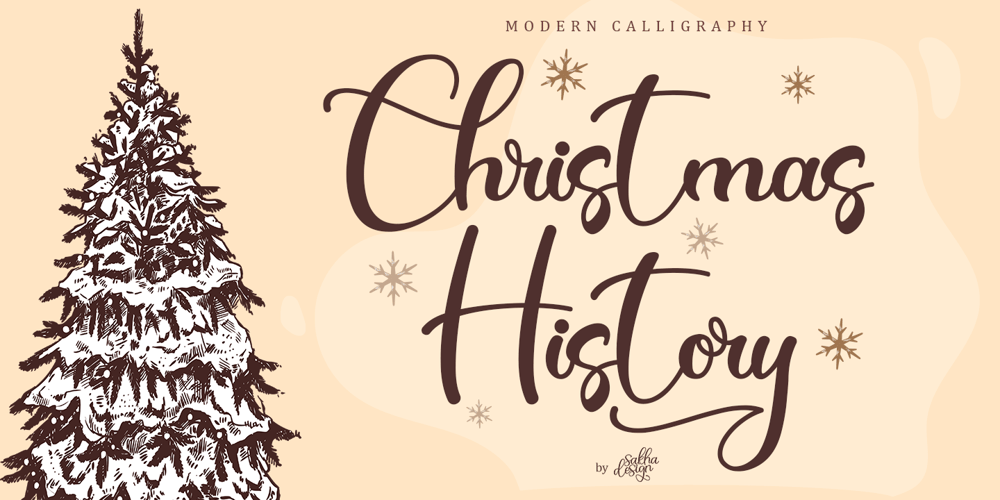
Christmas History Font Family was designed by Alif Ryan Zulfikar and published by Sakha Design. Christmas History contains 1 styles and family package options. Christmas History is a friendly, fresh, rich, and elegant handwritten font. It is ideal for holiday-themed greeting cards and for any crafting project that requires a romantic touch.